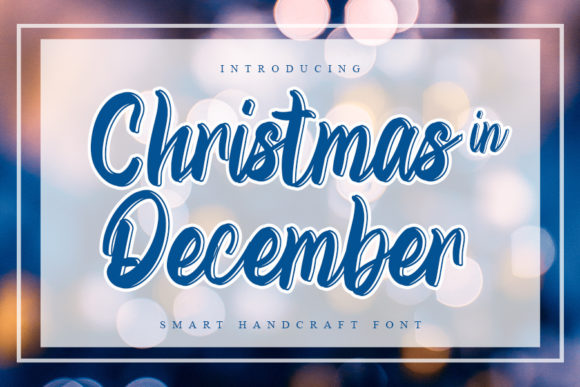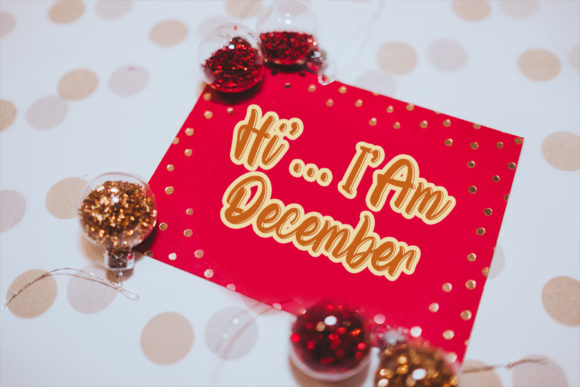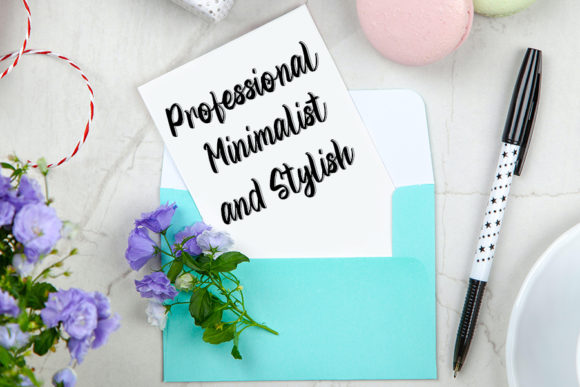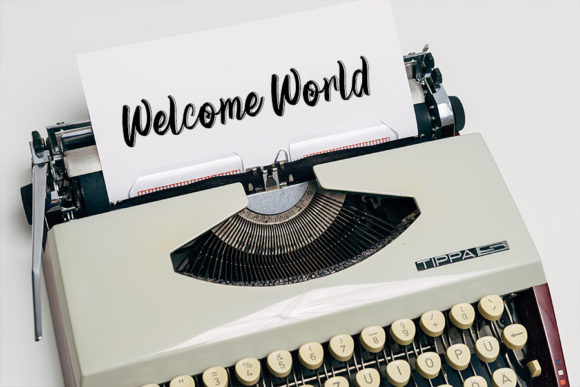
About Christmas in December Font
Christmas In December is a cursive and joyful handwritten font. It looks beautiful on a variety of designs requiring a neat style, such as wedding invitations, thank you cards, weddings, greeting cards, logos and so on.